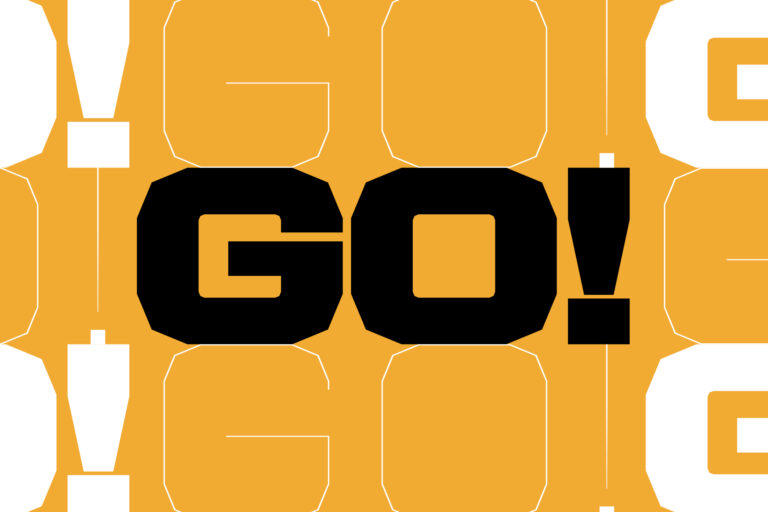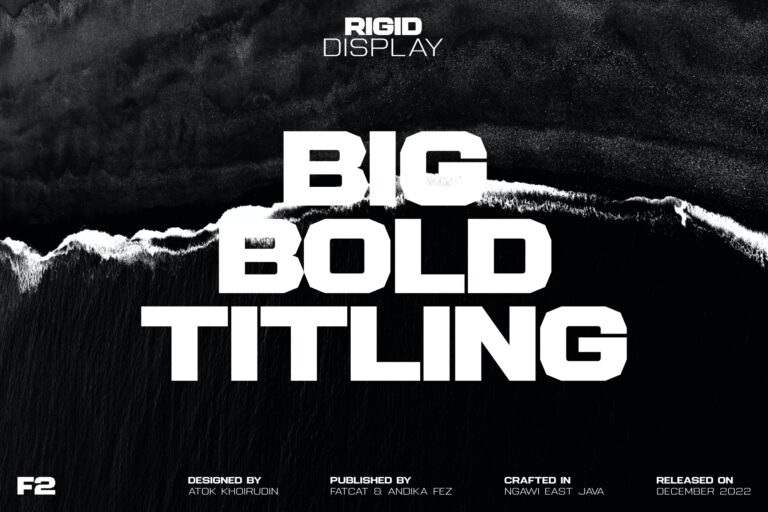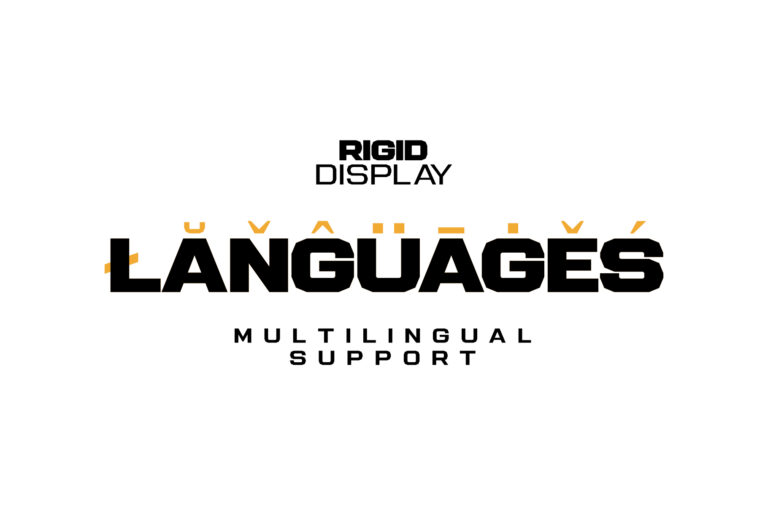
- Rigid Display Modern Logo Font
Meet Rigid Display, a modern logo font family made for designers who want their work to stand tall and speak loud. With a sleek geometric structure and confident attitude, this font brings a perfect mix of modern style and elegant simplicity.
Whether you’re crafting a branding concept, a sleek logo, or a bold headline, Rigid Display adds that extra edge without trying too hard. It’s right at home in magazines, contemporary layouts, high-end posters, or even a refined corporate identity system.
From polished logotypes to eye-catching title designs, Rigid Display delivers clarity, versatility, and presence — no fluff, just pure typographic power.